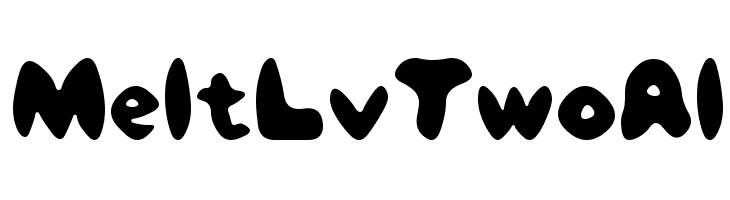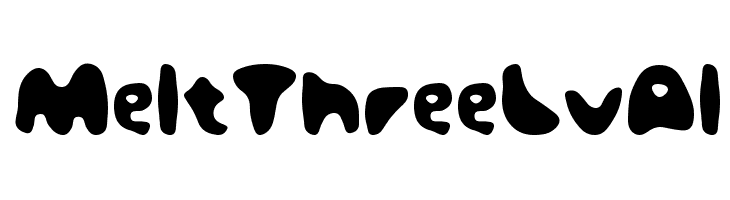
A playful, bold font with rounded, bubbly characters and a whimsical style.
A playful, bold font with rounded, blob-like characters and a whimsical style.
A bold, playful font with rounded, bubble-like characters.
A playful, bold font with organic, melting shapes.
A playful, rounded font with a casual, hand-drawn style.
A playful, rounded font with a hand-drawn, casual style.